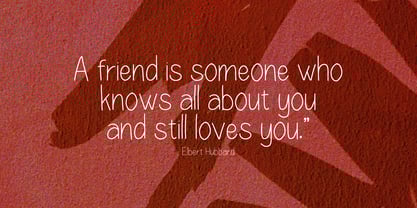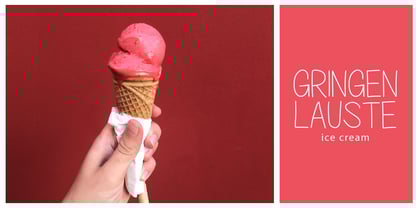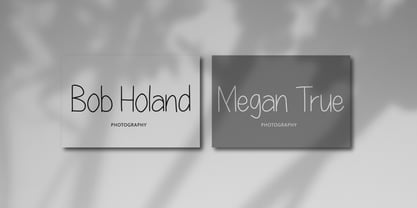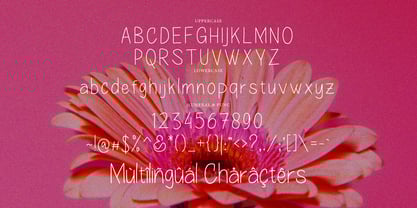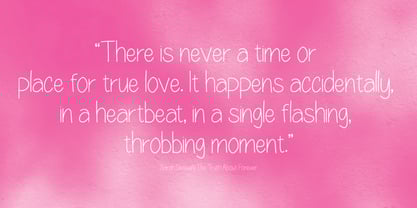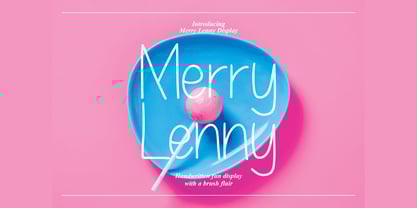
Merry Lenny Display
by Tebaltipis Studio
The Merry Lenny Display Font Family was designed by Dzulka Elfira and published by Tebaltipis Studio. Merry Lenny Display contains 1 styles. More about this family
Merry Lenny feels playfully nostalgic and delivers an incredible vintage retro aesthetic. Use this display font to add that special retro touch to any design idea you can think of !!! Masterfully designed to become a true favorite, this font has the potential to bring each of your creative ideas to the highest level!
Designers: Dzulka Elfira
Foundry: Tebaltipis Studio